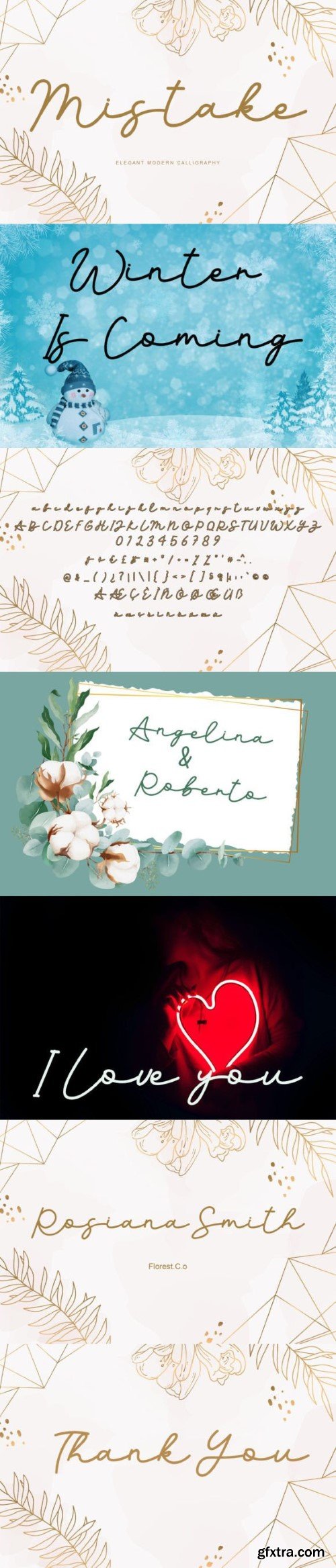
错字字体
Mistake is a delicate handwritten font carefully crafted for a cool and unique design. This font can be used to write letters, invitations, food products, titles and more.